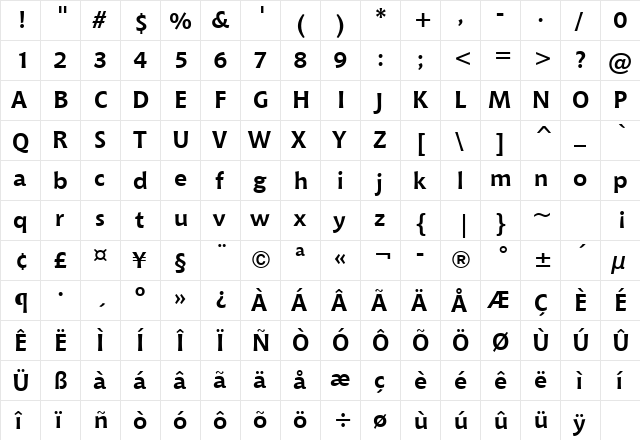
Chianti GX BT Bold
Design Context for Chianti GX BT Typeface
Chianti GX BT takes a measured approach to typography — its balanced proportions and neutral character make it a reliable workhorse for both digital and print work. Its bold stroke weight gives it real presence on the page.